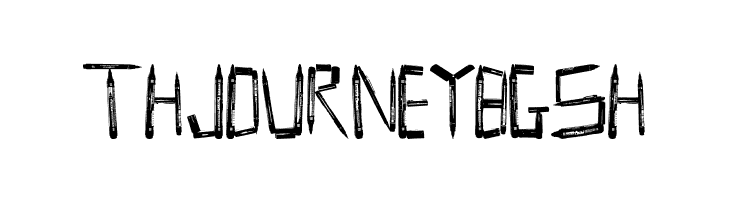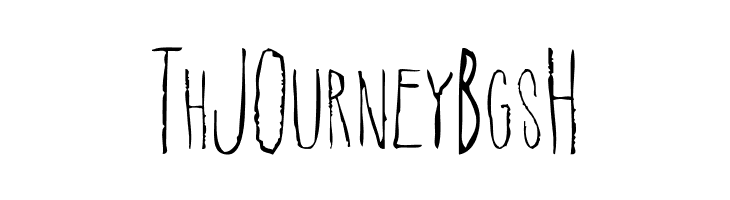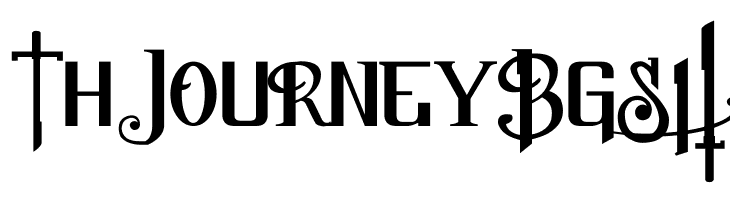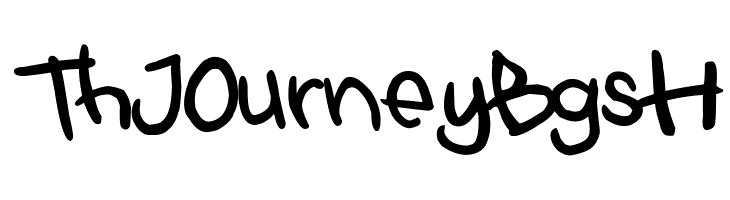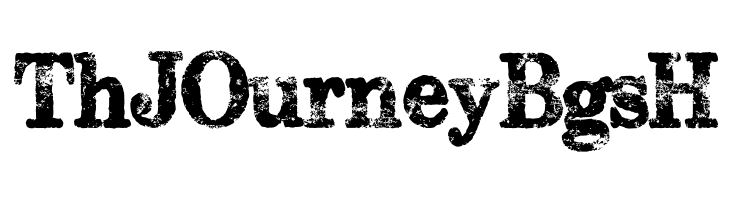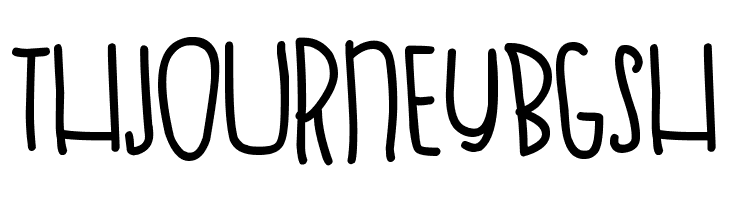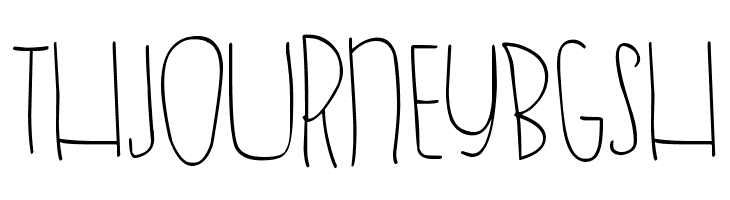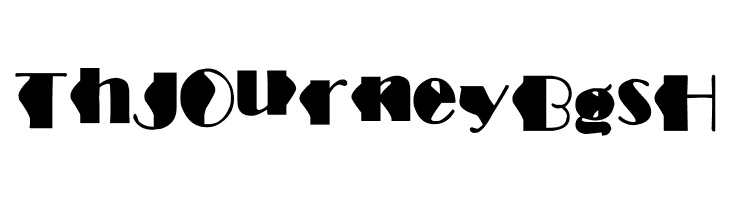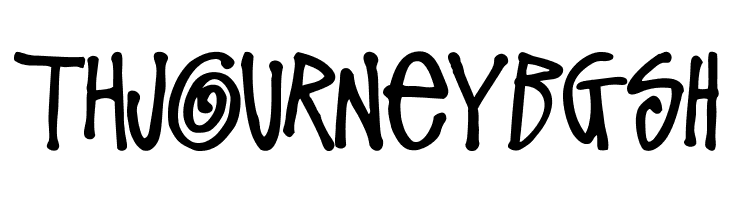
• Structure Wave
A bold, geometric font with sharp angles and unique cutouts.
• Stussy Script Regular
A bold, graffiti-inspired script font with a playful and energetic style.
• STYLEWARS 2011
• Stylo
A hand-drawn, textured font with sharp angles and an edgy style.
• Subway Novella
A bold, distressed font with a vintage, grunge appearance.
• Sucker Font
An ornate and decorative font with gothic influences and intricate details.
• SUGAR SHOCK
A playful, hand-drawn font with tall, narrow letters and a whimsical style.
• SUGAR SHOCK MAX'D Bold
A playful, bold handwritten font with tall, narrow letters and rounded edges.
• SuicideDraft-Regular
A distressed, hand-drawn font with a grungy, artistic style.